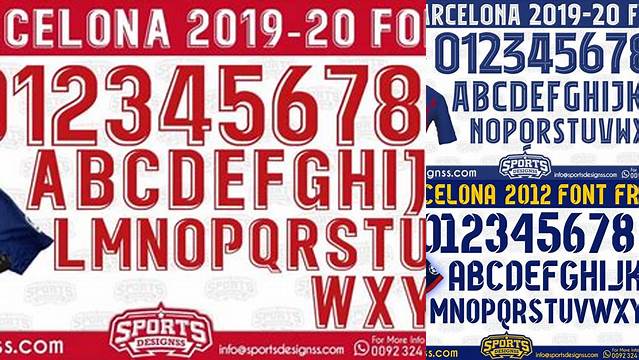
Barcelona 19/20 Font: Free Download For Your Designs
Hey guys! Are you looking to add a touch of Barcelona's iconic style to your designs? You've come to the right place! In this article, we're diving deep into the Barcelona 19/20 font, where to find it, and how to use it. We'll cover everything from free downloads to licensing, and even explore some cool design ideas. So, let's get started!
Barcelona 19/20 Font: A Deep Dive
The Barcelona 19/20 font is more than just a typeface; it's a symbol of the club's identity and rich history. This font was used on the official jerseys and merchandise during the 2019-2020 season, making it instantly recognizable to football fans worldwide. The sleek, modern design captures the spirit of Barcelona's dynamic play and global appeal. Using this font in your projects can evoke a sense of sporting excellence, passion, and the vibrant culture of Barcelona. Whether you're designing a poster, creating social media graphics, or working on a website, the Barcelona 19/20 font can add a unique and professional touch. It's a great way to connect with fans of the club and bring a piece of Barcelona's legacy to your work. Remember, typography plays a crucial role in branding and visual communication, and choosing the right font can make a significant impact. So, let's explore how you can get your hands on this iconic font and start using it in your creative endeavors. This font is not just for sports-related projects; its clean lines and modern aesthetic make it suitable for a wide range of designs, from corporate presentations to personal projects. Let’s uncover all the details about this awesome font!
Barcelona 19/20 Font Alternatives
If you're having trouble finding the exact Barcelona 19/20 font for free or with a suitable license, don't worry! There are plenty of fantastic alternatives that can capture a similar aesthetic for your projects. The key is to look for fonts with a modern, sporty feel, often characterized by bold, clean lines and a strong presence. One approach is to explore geometric sans-serif fonts, which often share the same contemporary vibe as sports-related typefaces. Fonts like Montserrat, Bebas Neue, and Open Sans are excellent options that are widely available and often come with open-source licenses, making them suitable for both personal and commercial use. These fonts offer a clean and legible design that works well in a variety of contexts, from headlines to body text. Another strategy is to search for fonts specifically designed for sports or athletic branding. Many foundries offer typefaces that are inspired by sports jerseys and team logos, providing a similar visual impact to the Barcelona 19/20 font. These fonts often feature bold weights, dynamic angles, and a sense of movement, making them perfect for projects that need to convey energy and excitement. When choosing an alternative, consider the overall tone and style of your project. Think about the message you want to communicate and how the font can help you achieve that. Don't be afraid to experiment with different options and combinations to find the perfect fit. Remember, the goal is to find a font that not only looks great but also aligns with your project's needs and your brand's identity. By exploring different alternatives, you can discover a typeface that is both visually appealing and legally compliant.
Designing with the Barcelona 19/20 Font
Okay, so you've got your hands on the Barcelona 19/20 font (or a great alternative), now what? It's time to get creative! This font is perfect for a wide range of design projects, especially those where you want to convey a sense of energy, modernity, and sporting spirit. Think about using it for posters, banners, social media graphics, and even website headers. The bold, clean lines make it highly legible and visually impactful, which is crucial for grabbing attention. One fantastic way to use the font is in sports-themed designs. If you're creating graphics for a football event, a sports blog, or even a local team, the Barcelona 19/20 font can add an authentic and professional touch. You can pair it with images of athletes, stadiums, or action shots to create a dynamic and engaging visual. But don't limit yourself to just sports! The font's modern aesthetic also makes it suitable for other types of projects. Consider using it for tech-related designs, corporate presentations, or even creative branding materials. The key is to play with different weights, sizes, and colors to find the perfect balance. For example, you could use the bold weight for headlines and the regular weight for body text to create a clear hierarchy. You can also experiment with different color combinations to match your brand's palette or the theme of your project. Remember, typography is a powerful tool in design, and the Barcelona 19/20 font is a fantastic asset to have in your toolkit. With a little creativity and experimentation, you can use it to create stunning visuals that stand out from the crowd. So, go ahead, unleash your inner designer and see what you can create!
Tips for Choosing the Right Font for Your Project
Choosing the right font for your project can feel like a Herculean task, but don't sweat it! Here are some tips to help you nail it every time. First off, think about the tone and message you want to convey. Is your project serious and professional, or fun and playful? The font should align with this overall feeling. For example, the Barcelona 19/20 font has a sporty and modern vibe, so it’s great for projects that need to feel energetic and dynamic. Next, consider legibility. A beautiful font is useless if people can't read it! Make sure your font is clear and easy to read, especially for body text. Bold fonts like the Barcelona 19/20 font work well for headlines, but you might want something simpler for longer paragraphs. Another crucial factor is contrast. Ensure there's enough contrast between your text and the background. Light text on a dark background or vice versa is usually a safe bet. If you're using colored text, make sure it stands out against the background color. Don't forget about font pairing. Combining different fonts can add visual interest, but it can also be tricky. A good rule of thumb is to pair a serif font (with little feet) with a sans-serif font (without feet). This creates a nice contrast while maintaining harmony. Online tools can help you find font pairings that work well together. Test your font in different sizes and contexts. What looks great on your computer screen might not look as good on a printed poster or a mobile device. Always test your font in the final medium to ensure it's working as expected. Lastly, don't be afraid to experiment! Try out different fonts and combinations until you find something that you love. There are tons of amazing fonts out there, so have fun exploring and discovering new favorites. Remember, the right font can make a huge difference in how your project is perceived, so take your time and choose wisely.
Common Mistakes to Avoid When Using Fonts
Let's be real, we've all made font faux pas at some point. But don't worry, we're here to help you dodge those common mistakes and become a font pro! One of the biggest blunders is using too many fonts. Seriously, guys, stick to a maximum of two or three fonts per project. More than that, and things start to look chaotic and unprofessional. Imagine a poster with five different fonts – yikes! It's much better to choose a couple of fonts that complement each other and use them consistently throughout your design. Another mistake is ignoring legibility. We've said it before, but it's worth repeating: if people can't read your text, your design is failing. Avoid fonts that are too thin, too decorative, or too small. Always prioritize clarity over aesthetics. Poor contrast is another common pitfall. If your text blends into the background, nobody's going to read it. Make sure there's enough contrast between your text and background colors. Light text on a dark background or dark text on a light background is usually a safe bet. Using the wrong font for the wrong purpose is also a big no-no. A playful, whimsical font might be perfect for a children's book, but it's probably not the best choice for a corporate report. Think about the tone and message of your project and choose a font that aligns with it. Stretching or distorting fonts is a major design crime. Fonts are carefully crafted by designers, and stretching them throws off their proportions and makes them look terrible. If you need a wider or taller font, choose a different font or a different weight of the same font. Finally, neglecting font licensing can land you in legal hot water. Always check the licensing terms before using a font, especially for commercial projects. If you're not sure, it's better to err on the side of caution and choose a font that you have the right to use. By avoiding these common mistakes, you'll be well on your way to creating font-tastic designs that impress!
How Font Choice Impacts Brand Identity
Fonts aren't just pretty letters; they're powerful tools that can significantly impact your brand identity. Think of your brand as a person – the font you choose is like their voice and style. It communicates personality, values, and the overall feeling you want people to associate with your brand. Choosing the right font is like picking the perfect outfit for a first impression. A sleek, modern font can convey innovation and sophistication, while a classic, serif font might evoke tradition and trustworthiness. If you're using the Barcelona 19/20 font (or a similar sporty font), you're instantly tapping into a sense of energy, dynamism, and athletic prowess. It's like wearing a team jersey – it instantly connects you to a specific culture and set of values. The wrong font, on the other hand, can send the wrong message and confuse your audience. Imagine a high-end luxury brand using a playful, cartoonish font – it just wouldn't work! Consistency is key when it comes to font usage. Choose a few core fonts for your brand (usually one for headlines and one for body text) and stick to them across all your materials. This creates a cohesive and recognizable brand identity. Think about brands like Coca-Cola or Disney – their logos and fonts are instantly recognizable, and that's no accident. They've carefully chosen and consistently used their fonts to reinforce their brand identity. Your font choices also need to align with your target audience. What fonts will resonate with them? What fonts will make them feel connected to your brand? Consider your audience's demographics, preferences, and the overall tone of your communication. Don't underestimate the emotional impact of fonts. Different fonts evoke different feelings – some feel friendly and approachable, while others feel formal and authoritative. Think about the emotions you want your brand to evoke and choose fonts that align with those feelings. In short, font choice is a critical aspect of branding. It's worth taking the time to choose fonts that accurately reflect your brand's personality, values, and message. When you get it right, your fonts will become a powerful asset in building a strong and recognizable brand identity.